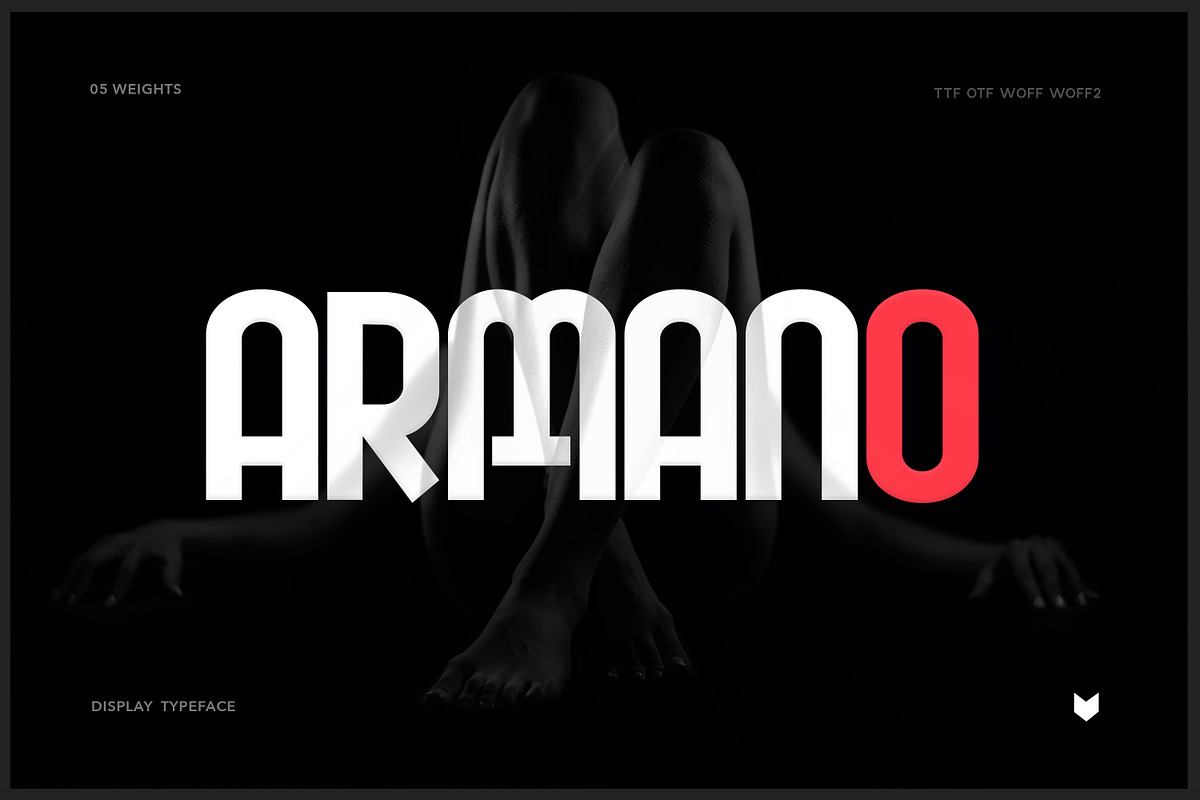
Armano Display Typeface Free Download
Armano Display Typeface Free Download is a bold and stylish typeface crafted for maximum visual impact. With its sharp angles, high contrast, and modern elegance, Armano is ideal for headlines, fashion branding, editorial layouts, packaging, and luxury logo designs. It brings a sleek, confident tone that instantly grabs attention while maintaining sophistication.
Armano Display Typeface Free Download is designed to make your text stand out—perfect for both digital and print applications where a strong, stylish presence is needed. The clean geometry and artistic flair make it a favorite among designers working in beauty, fashion, lifestyle, and upscale product industries.